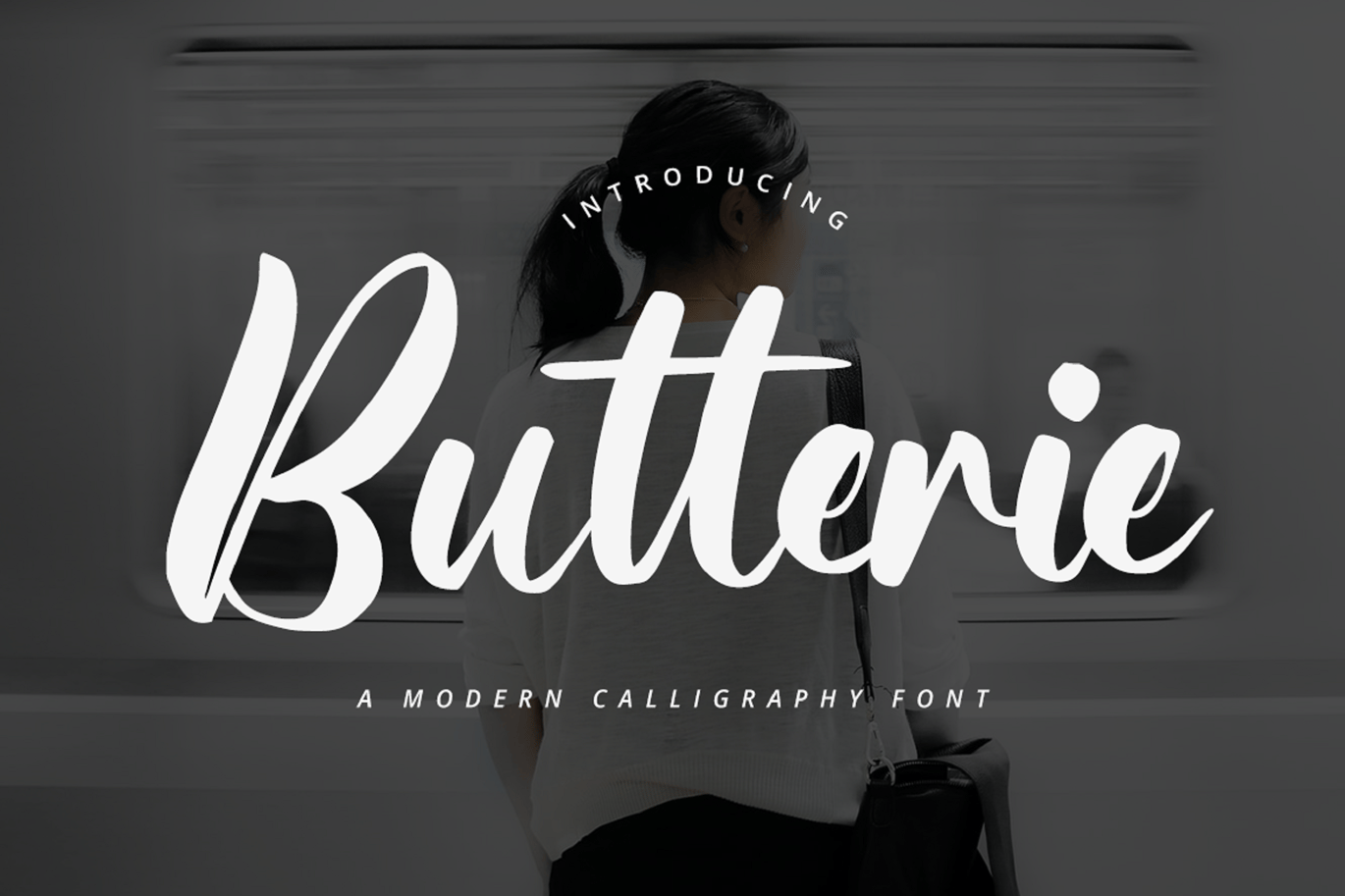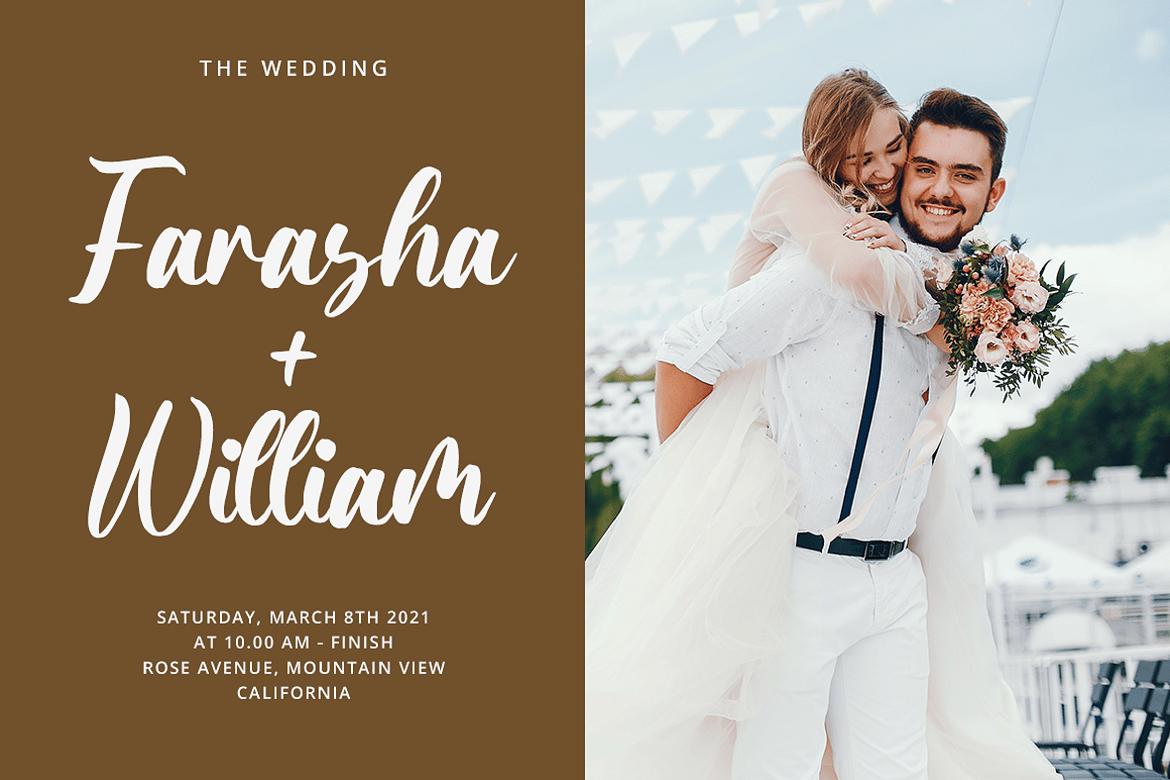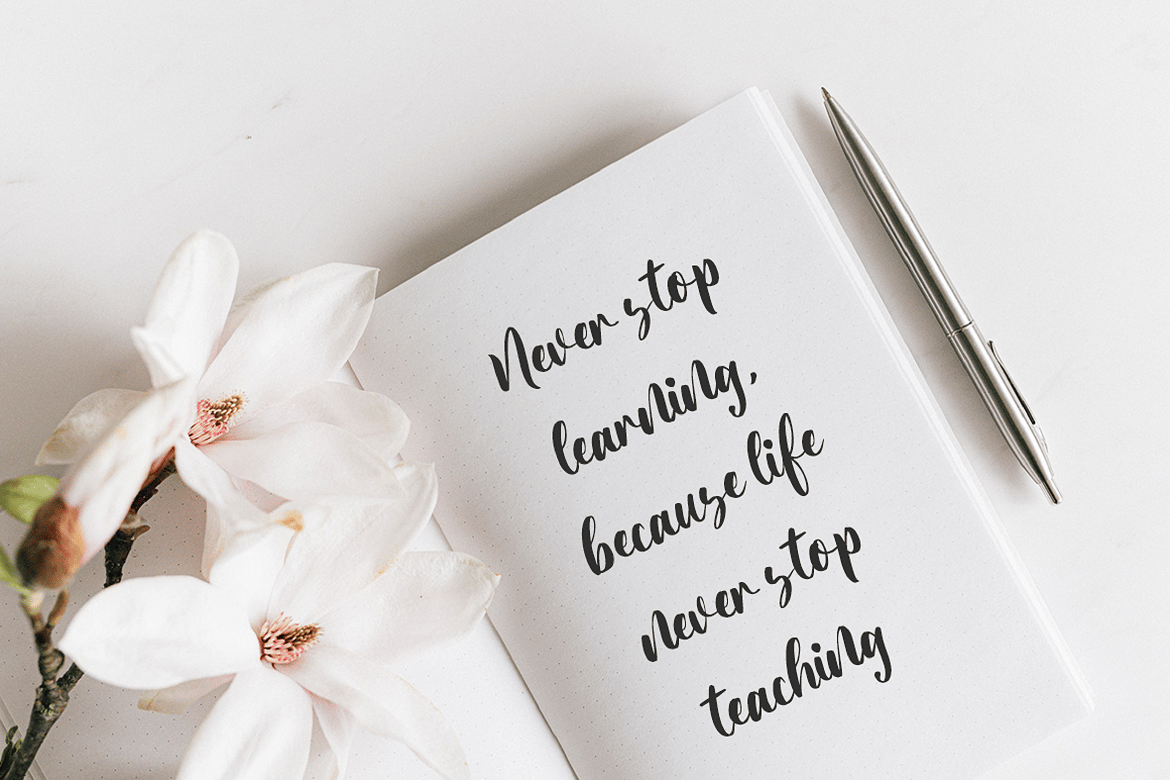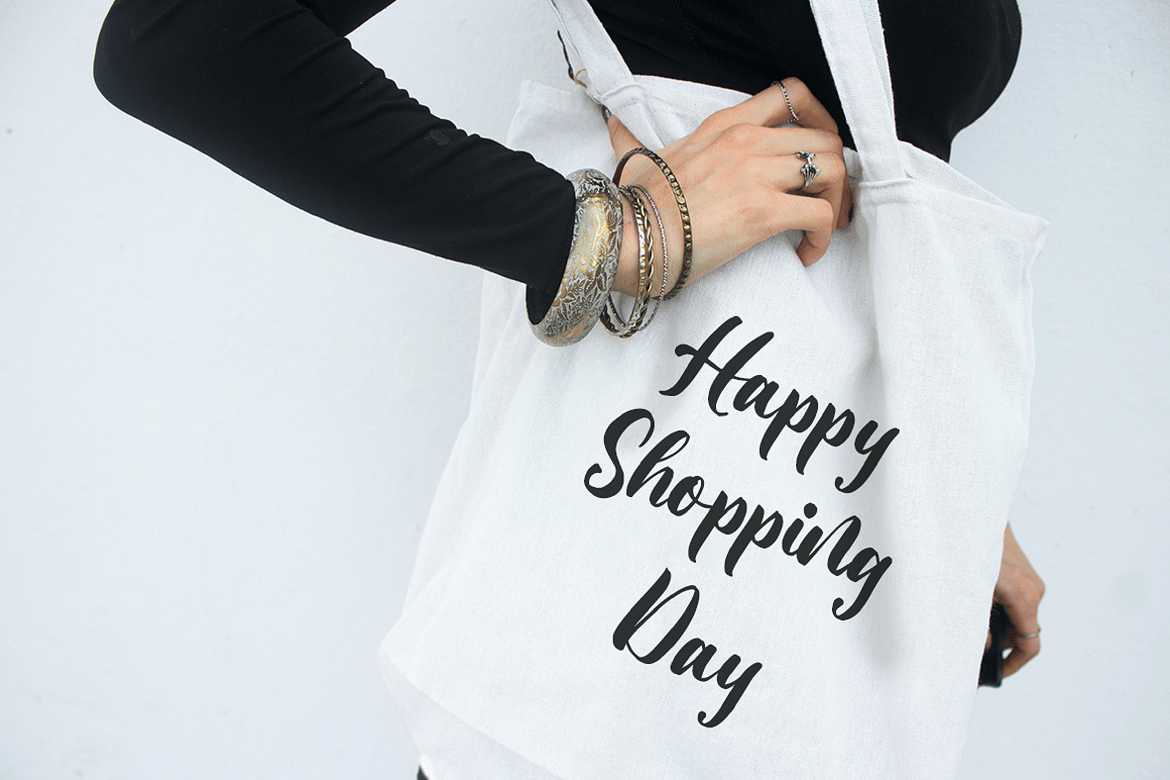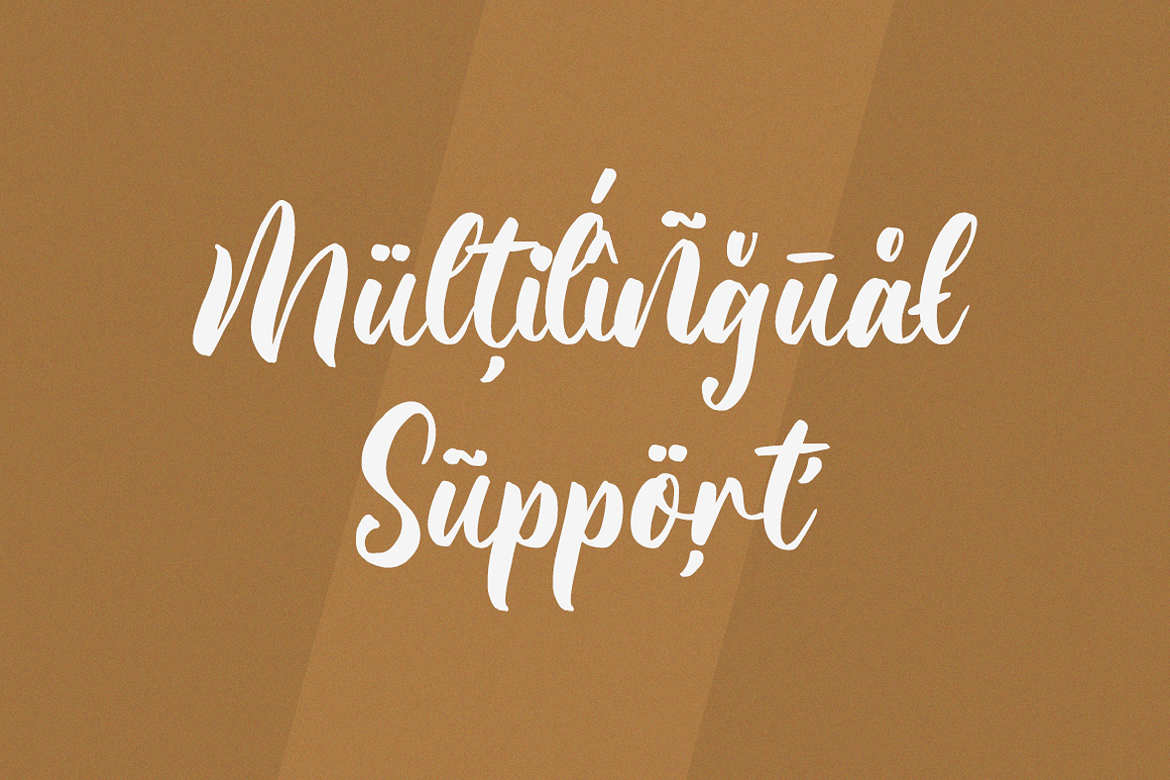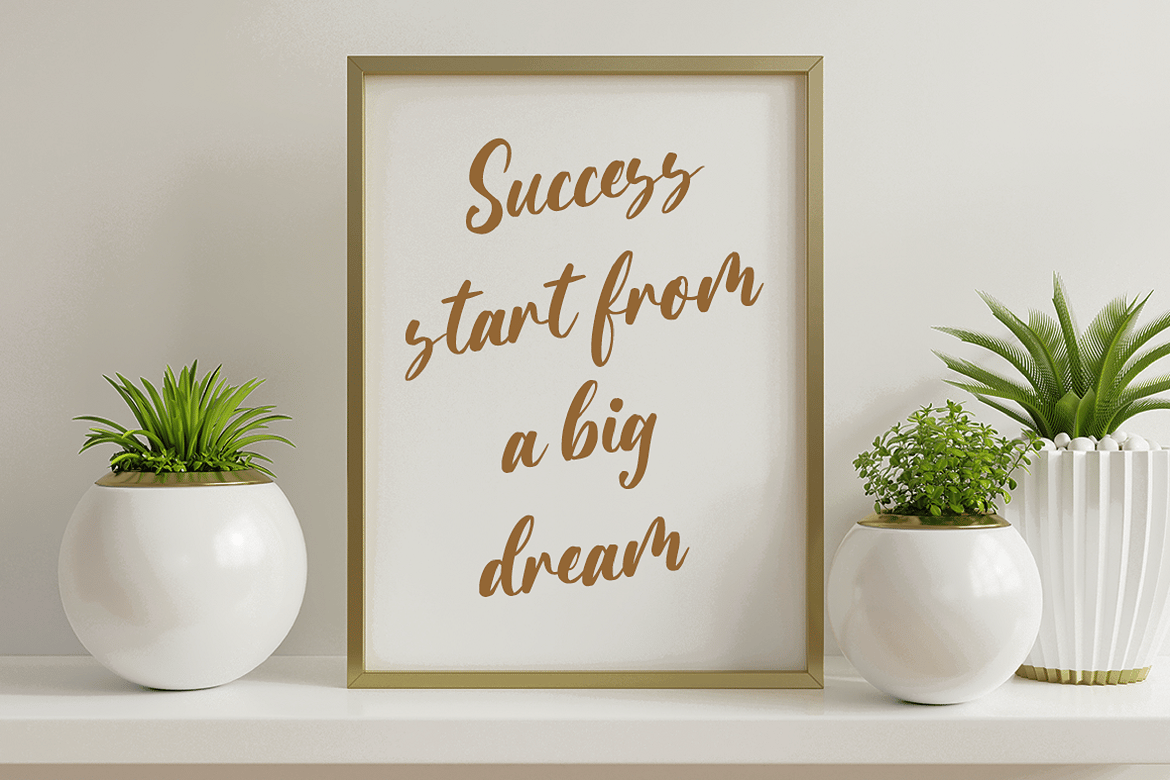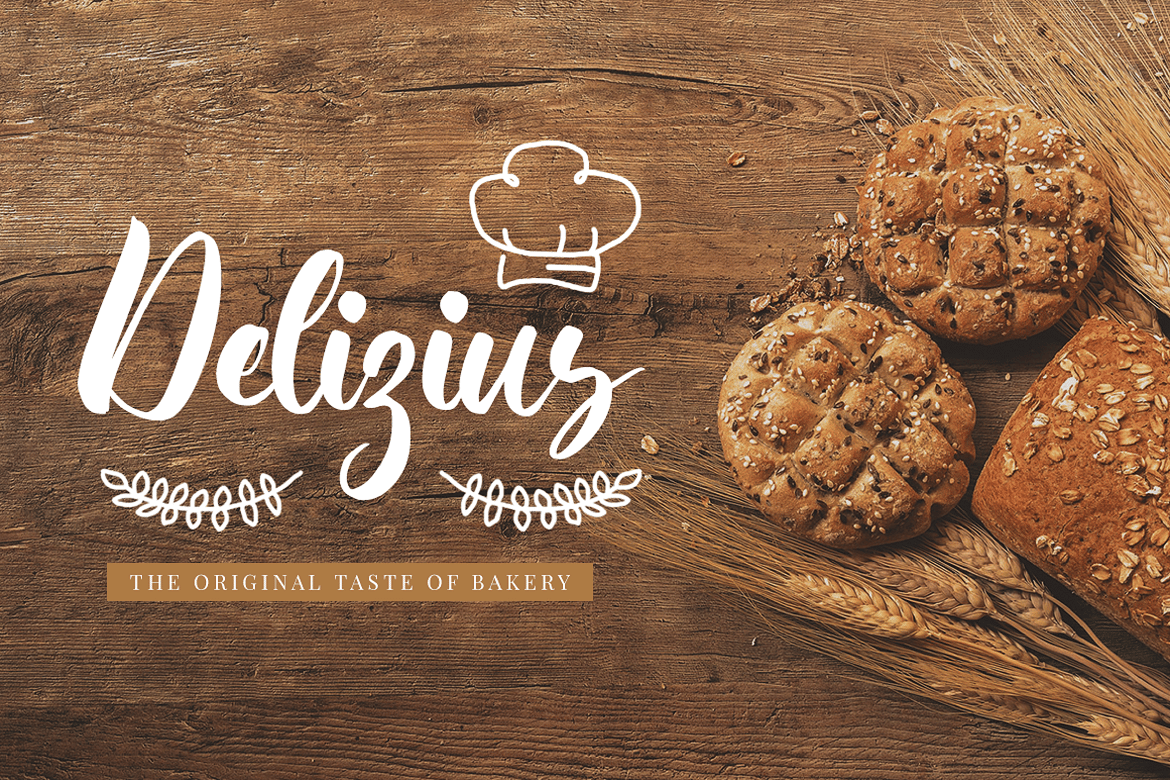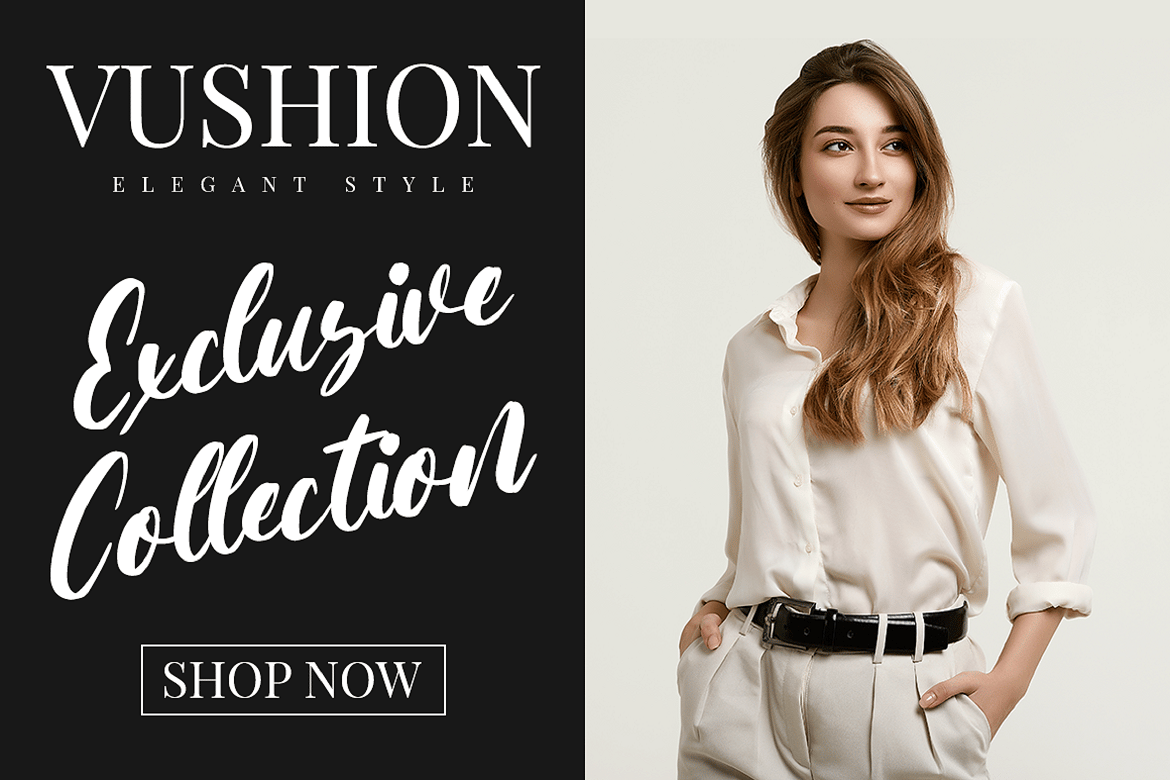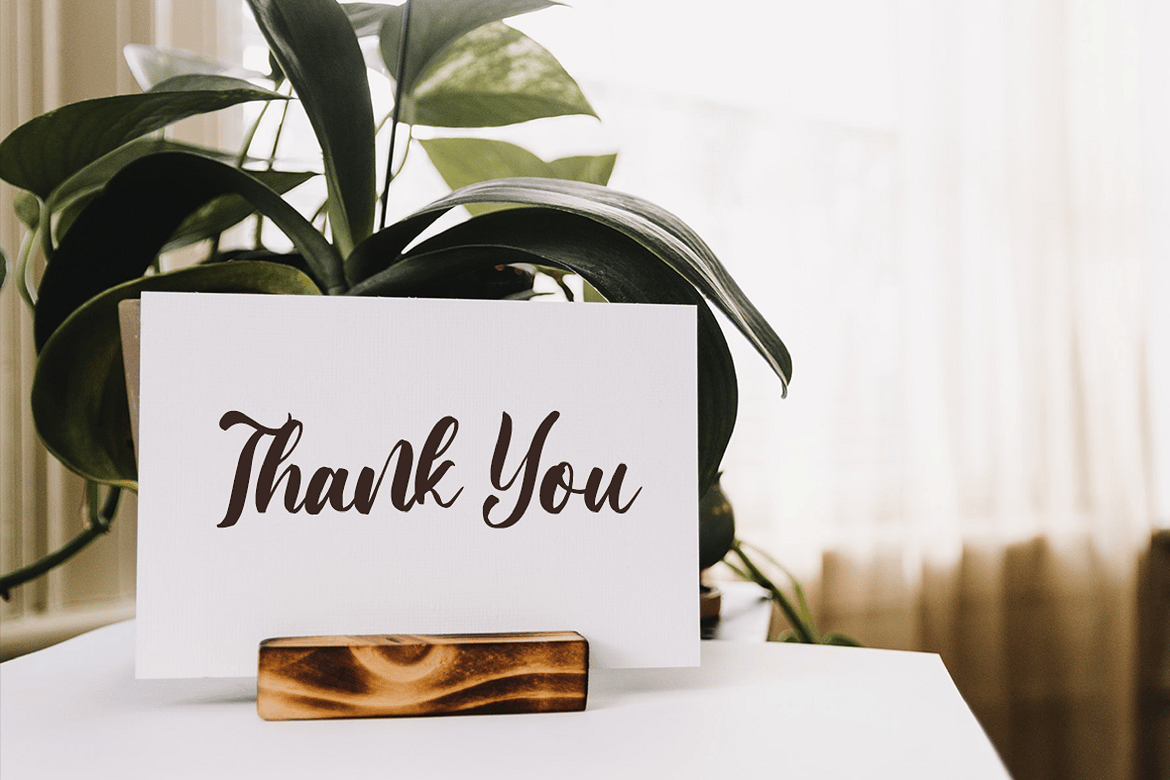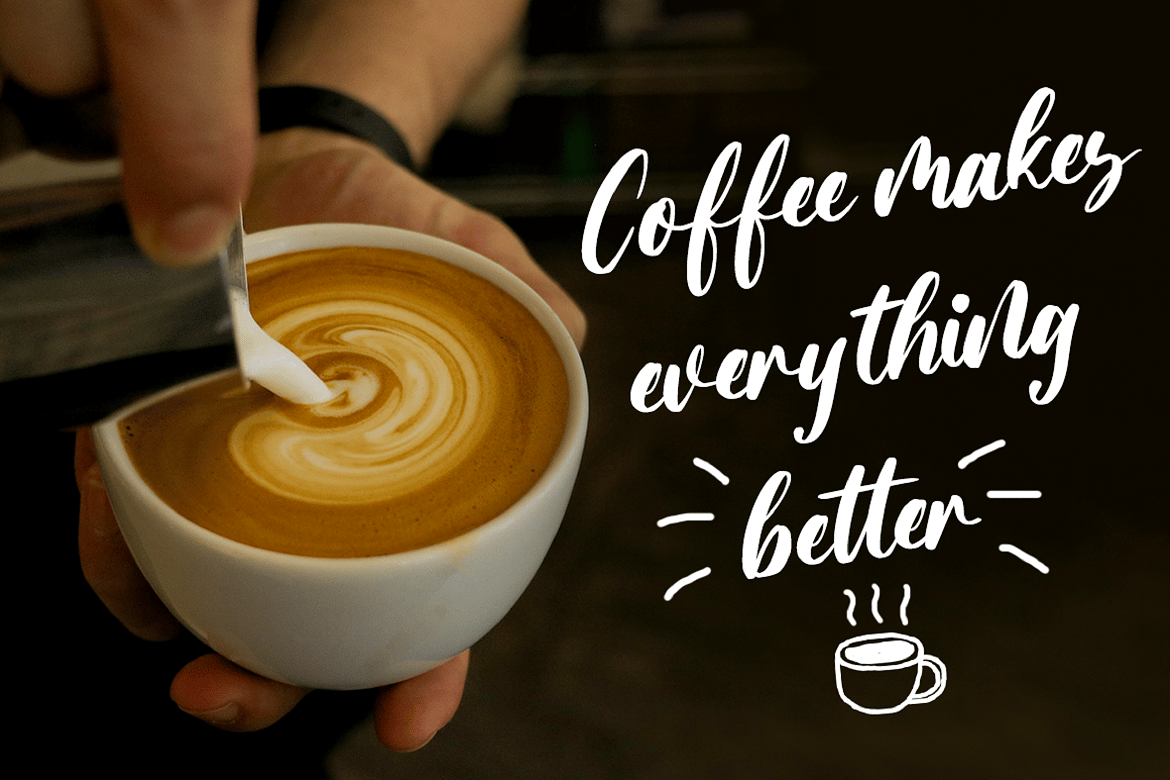
Calligraphy Font – Butterie
Butterie, a modern calligraphy font, designed with the mix of modern and classic vibe. It’s a must have font for your classy website, for your social media branding, Pinterest banners, printed invitations, and more!
Butterie Calligraphy font is a timeless font, will never go wrong for your audience, clients, guests or anyone around you!
- Multilingual & Ligature Support
- Full sets of Punctuation and Numerals